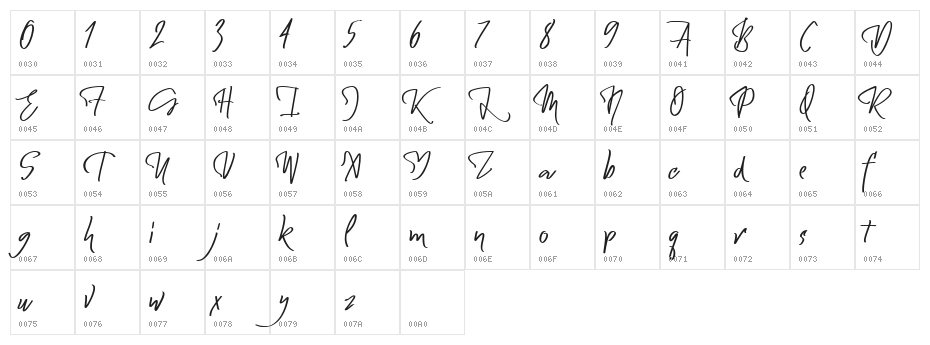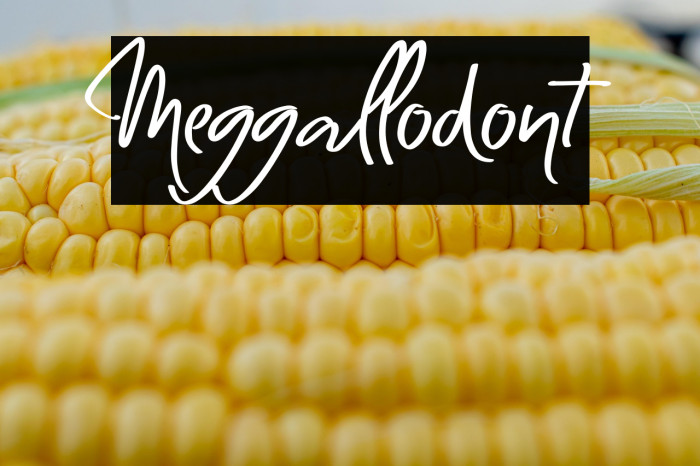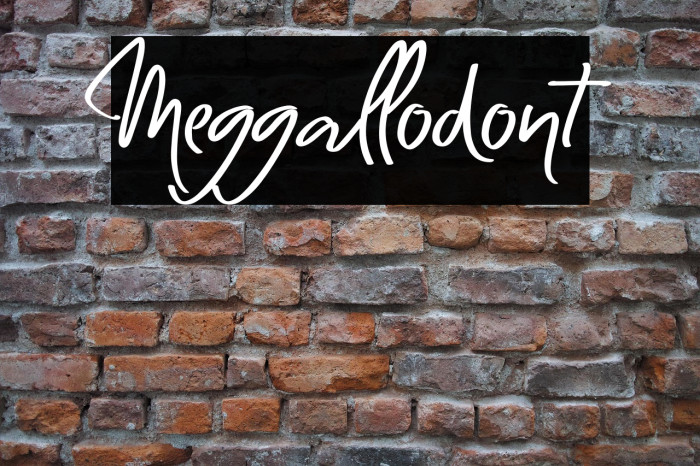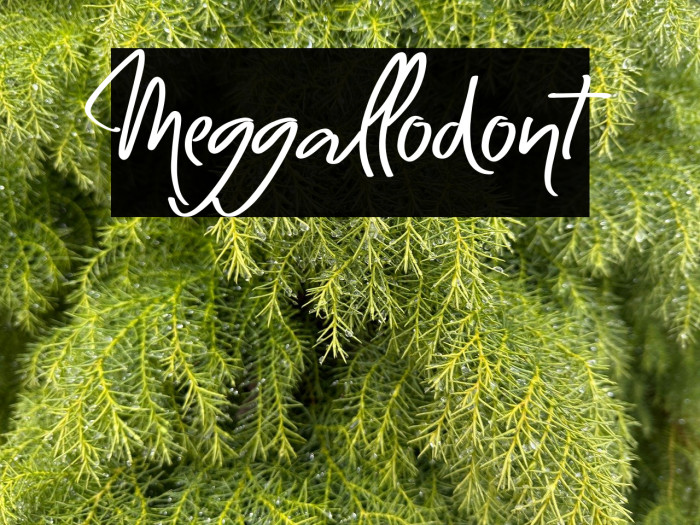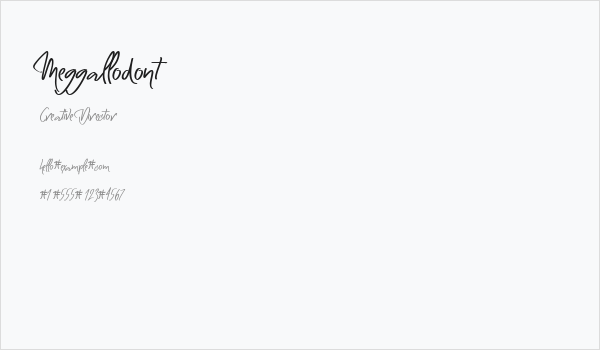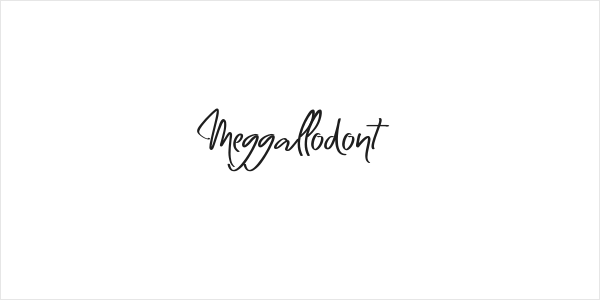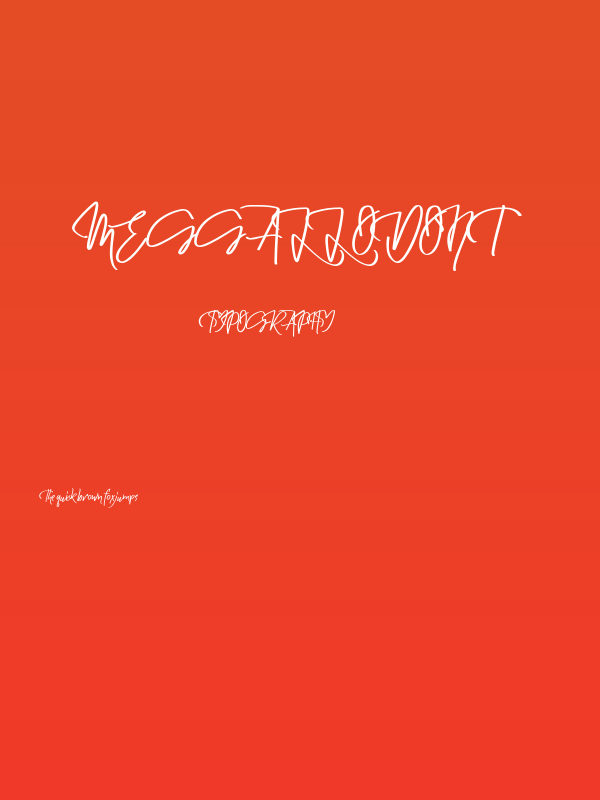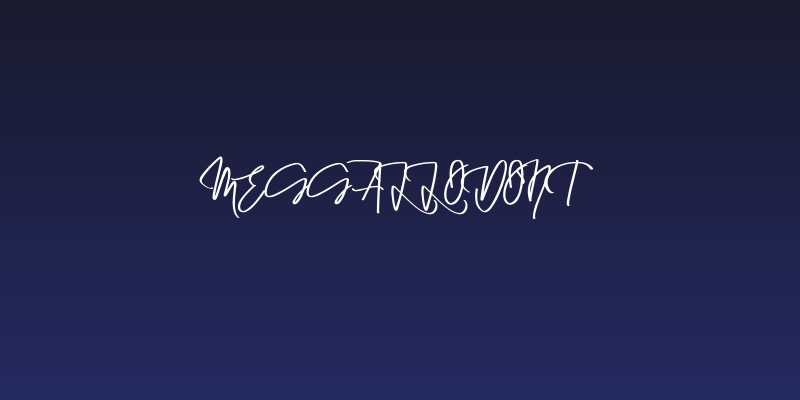
Meggallodont Font
Meggallodont Description
This font features a dynamic and expressive handwritten style, characterized by its flowing and interconnected letterforms. The strokes are bold and energetic, with a natural, organic feel that mimics the fluidity of real handwriting. The uppercase letters are particularly striking, with a sense of movement and flair, while the lowercase letters maintain a consistent rhythm and balance. The numerals are equally expressive, maintaining the same lively aesthetic. This font is ideal for projects that require a personal touch, such as invitations, greeting cards, or branding materials that aim to convey creativity and individuality.